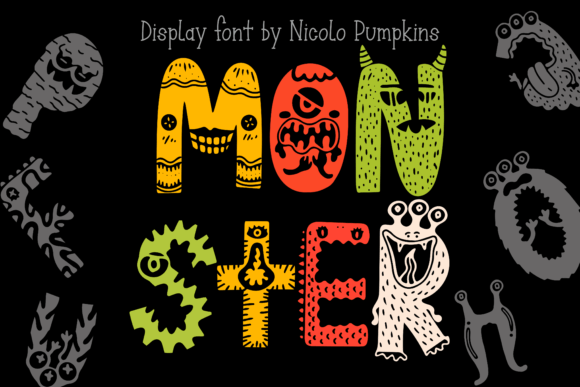
Looking for the perfect font to use for your Halloween-themed products? Look no further than Monster Font! Created by the talented Nicolo Pumpkins, this decorative font is perfect for adding a spooky touch to any lettering project.
But Monster Font isn't just for Halloween. With its cool, cute, and friendly design, this font can be used year-round to add a unique touch to t-shirts, cards, tote bags, mugs, hats, hoodies, notebooks, and so much more!
Whether you're a professional designer or just someone looking to add a creative touch to your products, Monster Font is the perfect choice. Its eye-catching design is sure to grab attention and make your work stand out from the crowd.